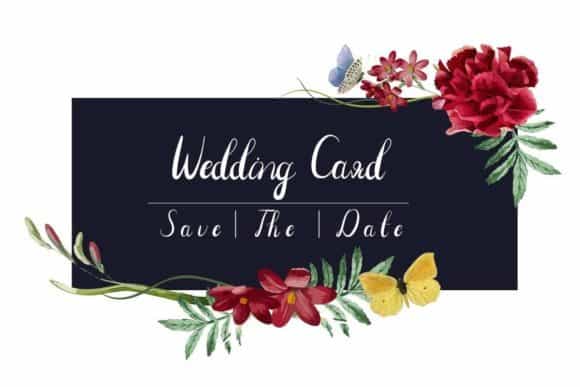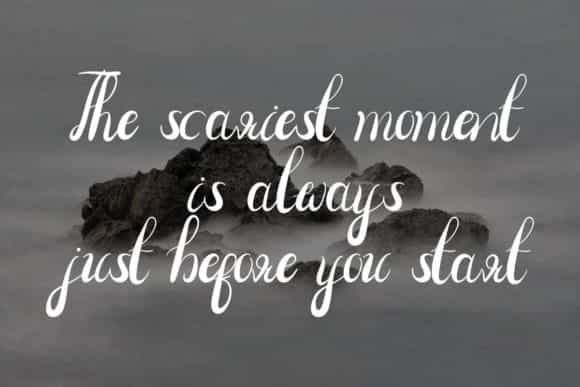
Alloycia is a Modern Script font which can make your text look elegant, luxurious and modern! Alloycia Font is just what you need for the branding projects, logo, wedding designs, social media posts, advertisements, product packaging and t-shirt design. Also it fits well with the photography watermarking as well as invitations and stationery work.